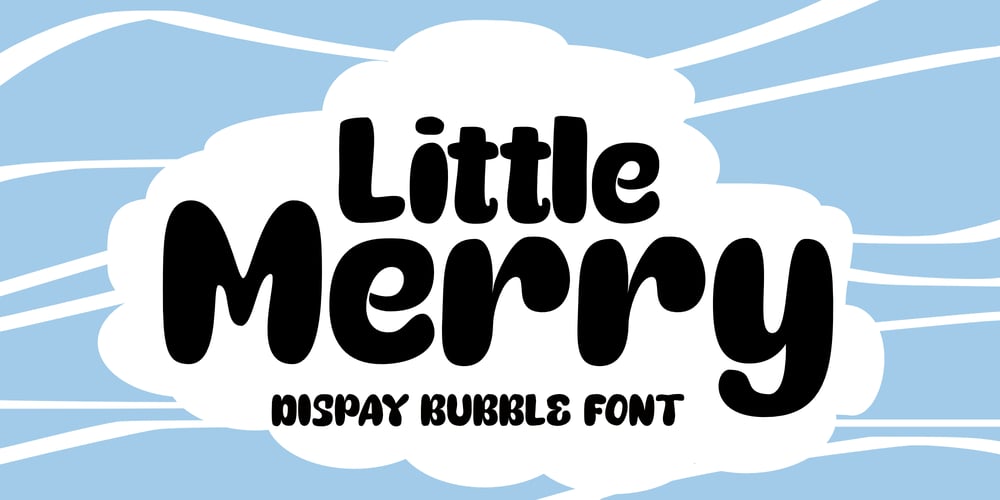
Little Merry Font Family was designed by Nur Solikh and published by Astageni. Little Merry contains 1 styles and family package options. “Introducing Little Merry — the bubbly, round typeface that adds a touch of whimsy to your design endeavors! This fun and friendly script font boasts a bold style, perfect for sparking creativity in your projects. Whether you’re crafting T-shirt designs, phone cases, greeting cards, invitations, mugs, or anything else you can imagine, Little Merry is here to infuse your creations with charm. Let your designs come to life with this delightful font and unleash your creative spirit!”